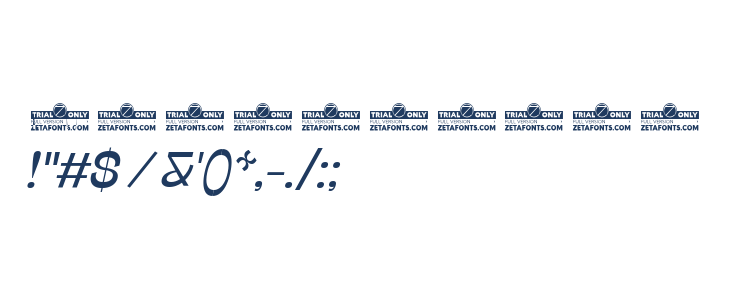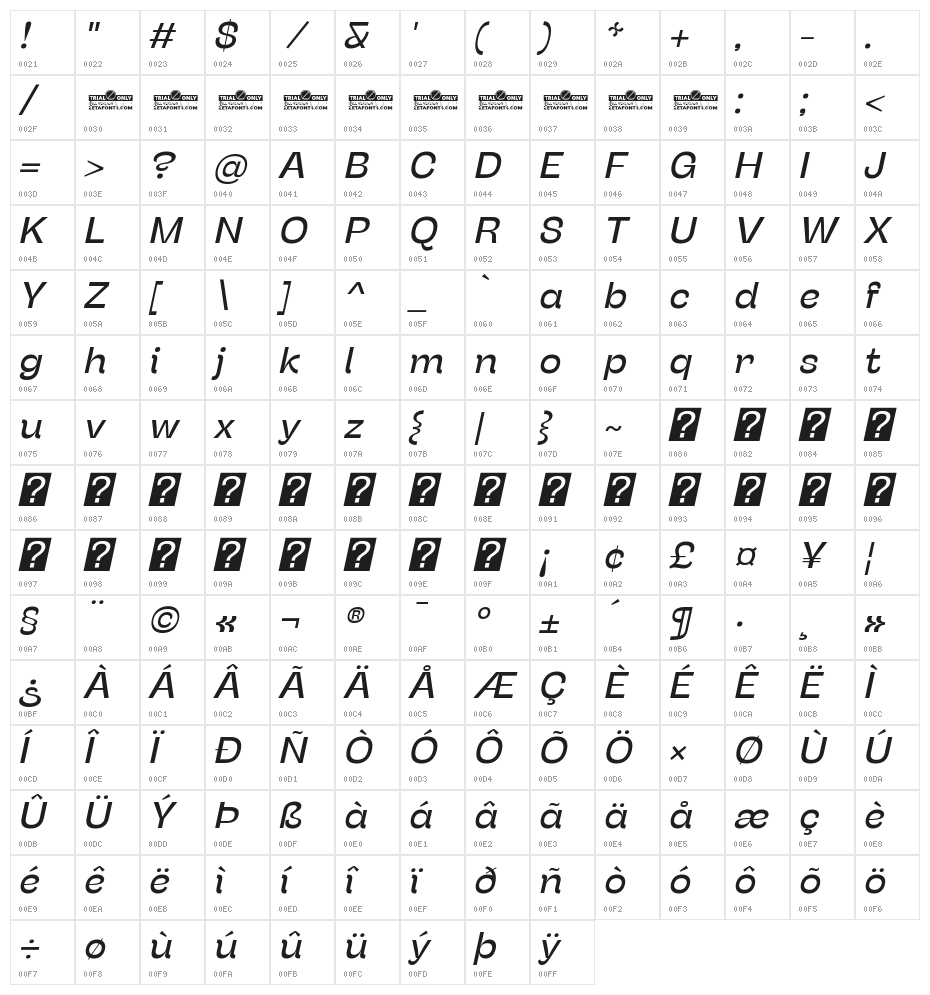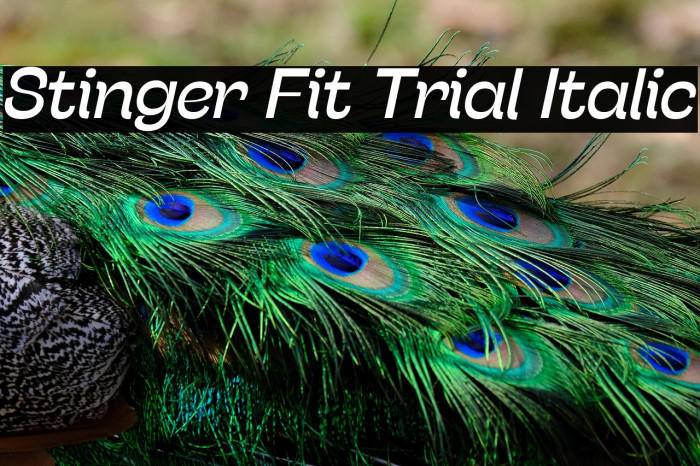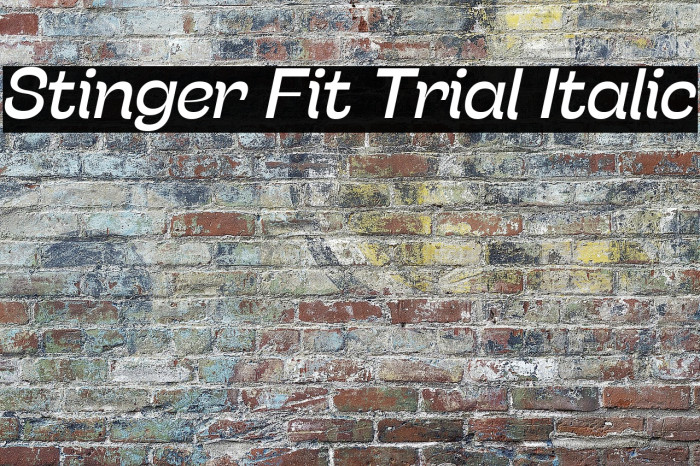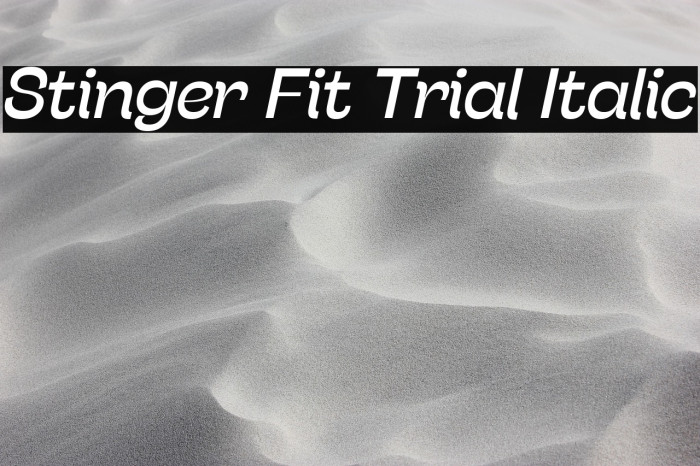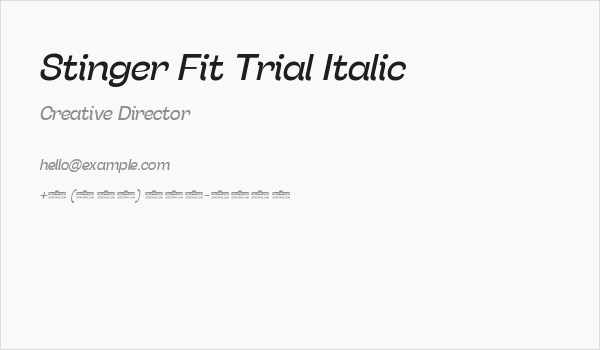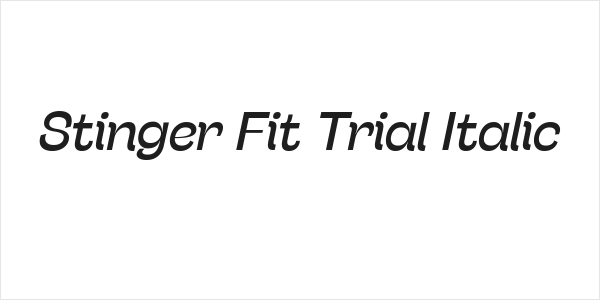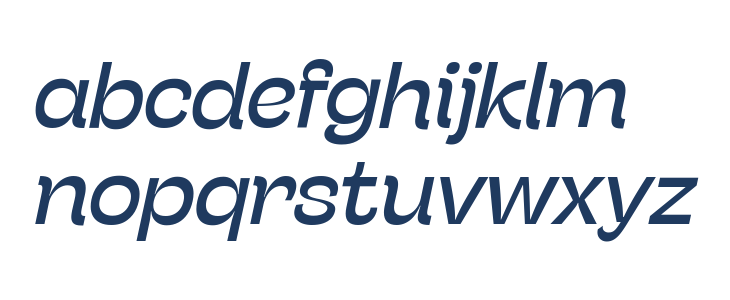
Stinger Fit Trial Italic Font
Stinger Fit Trial Italic Description
This font features a sleek and modern italic style with smooth curves and a clean, streamlined appearance. The letters are slightly slanted, giving it a dynamic and forward-moving feel. The uppercase and lowercase characters are well-balanced, with consistent stroke widths that provide a harmonious look. The numerals and special characters maintain the same aesthetic, ensuring uniformity across all elements. This font is versatile, suitable for both digital and print media, and can be used to create a contemporary and professional impression.
| Proposed Projects | Ideal for branding, advertising, and editorial design projects that require a modern and professional touch. |